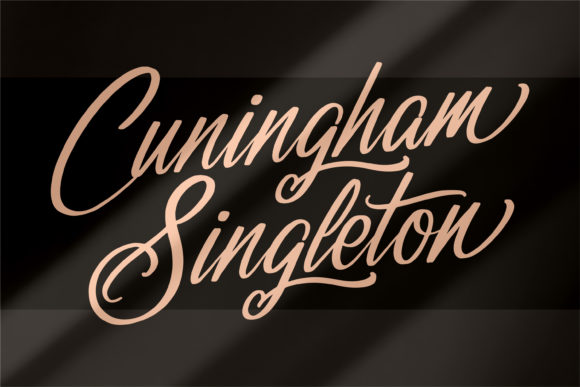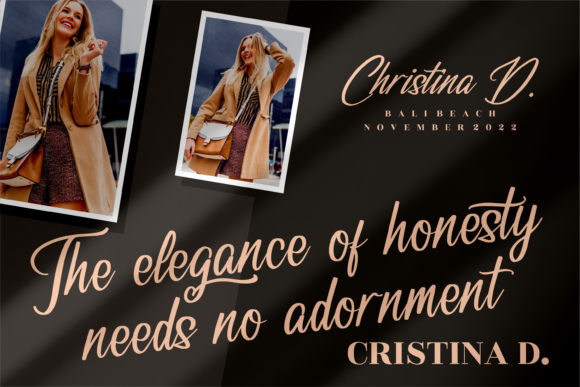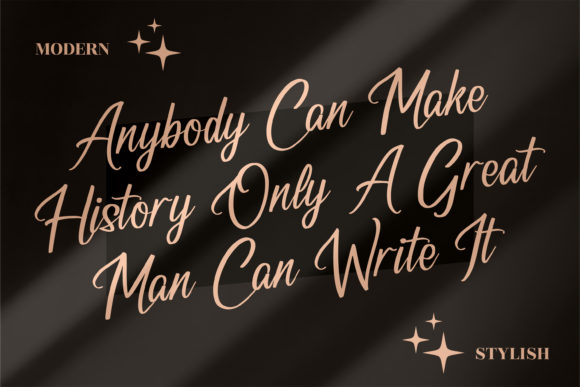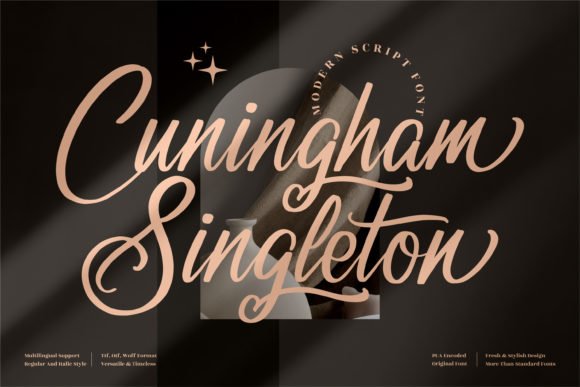
Introduction to Cuningham Singleton Font
Cuningham Singleton is a beautiful and light handwritten font with a unique feel and a stunning impact.
It will add a luxury spark to any design project that you wish to create This font is PUA encoded which means you can access all of the amazing glyphs and ligatures with ease.
Cuningham Singleton Font offers exceptional quality and versatility, making it a valuable addition to your design toolkit. Whether you’re creating for personal projects or commercial use, Cuningham Singleton Font delivers professional results.